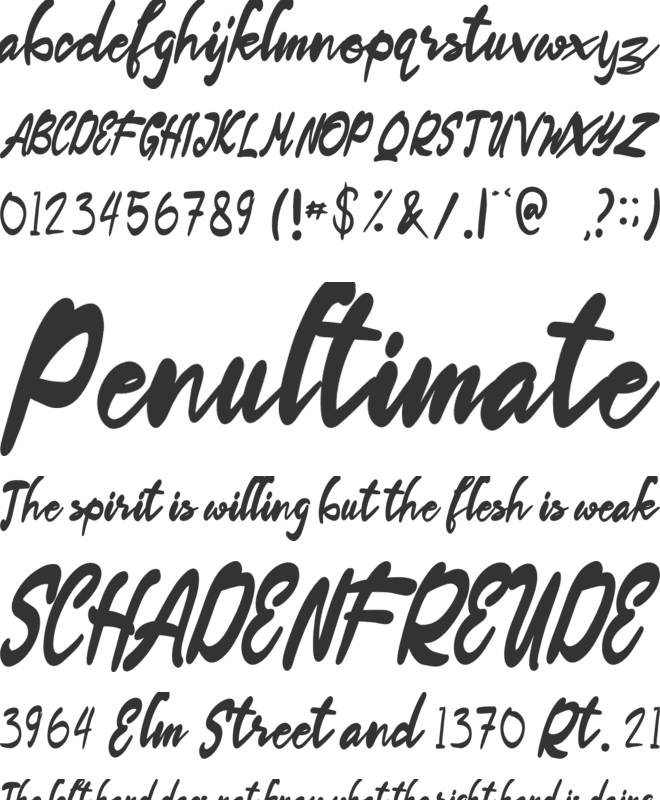
The SimpleHappiness Font
The Simple Happiness Is script Casual Font with a variety of alternate, and try downloading it!
The SimpleHappiness font preview